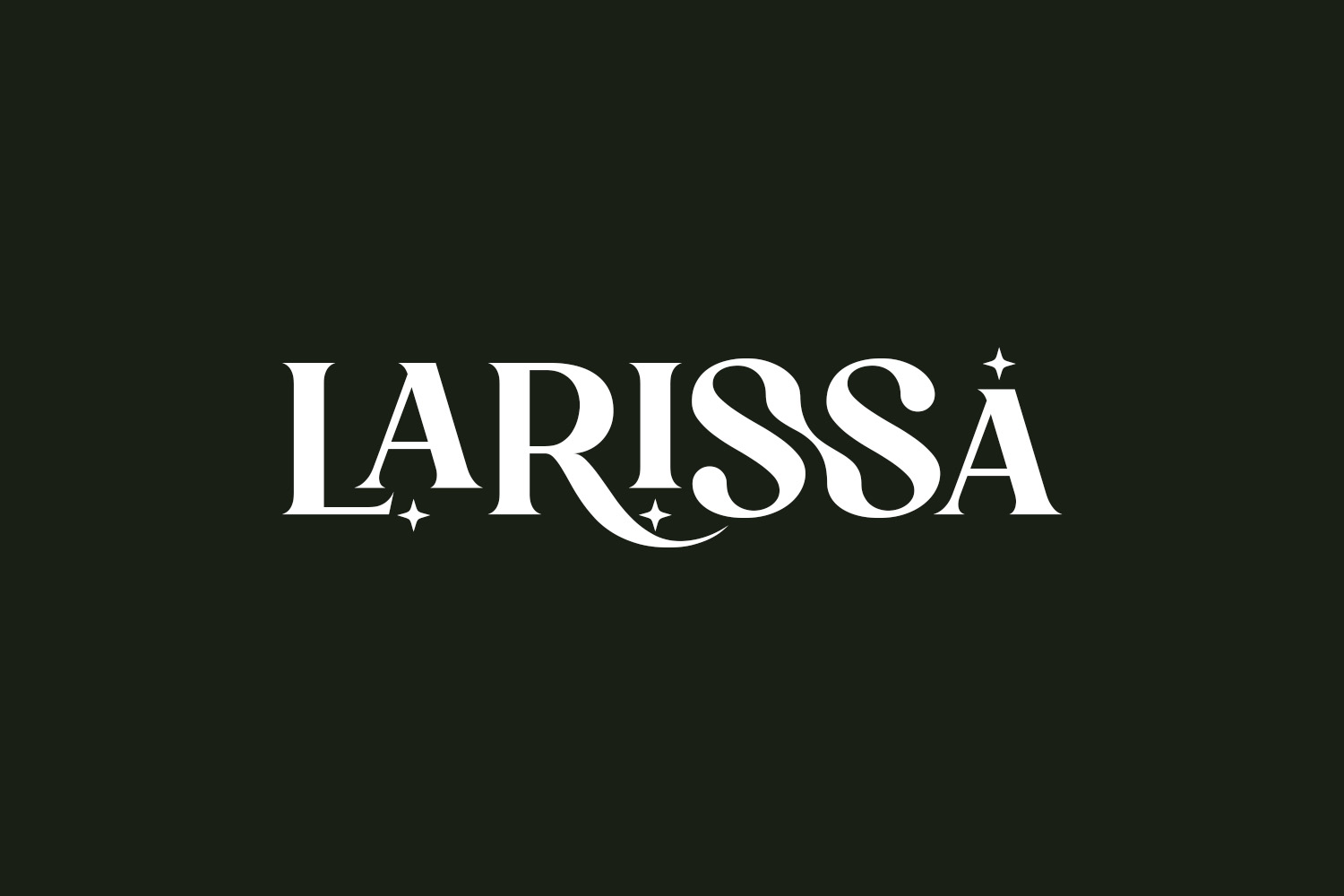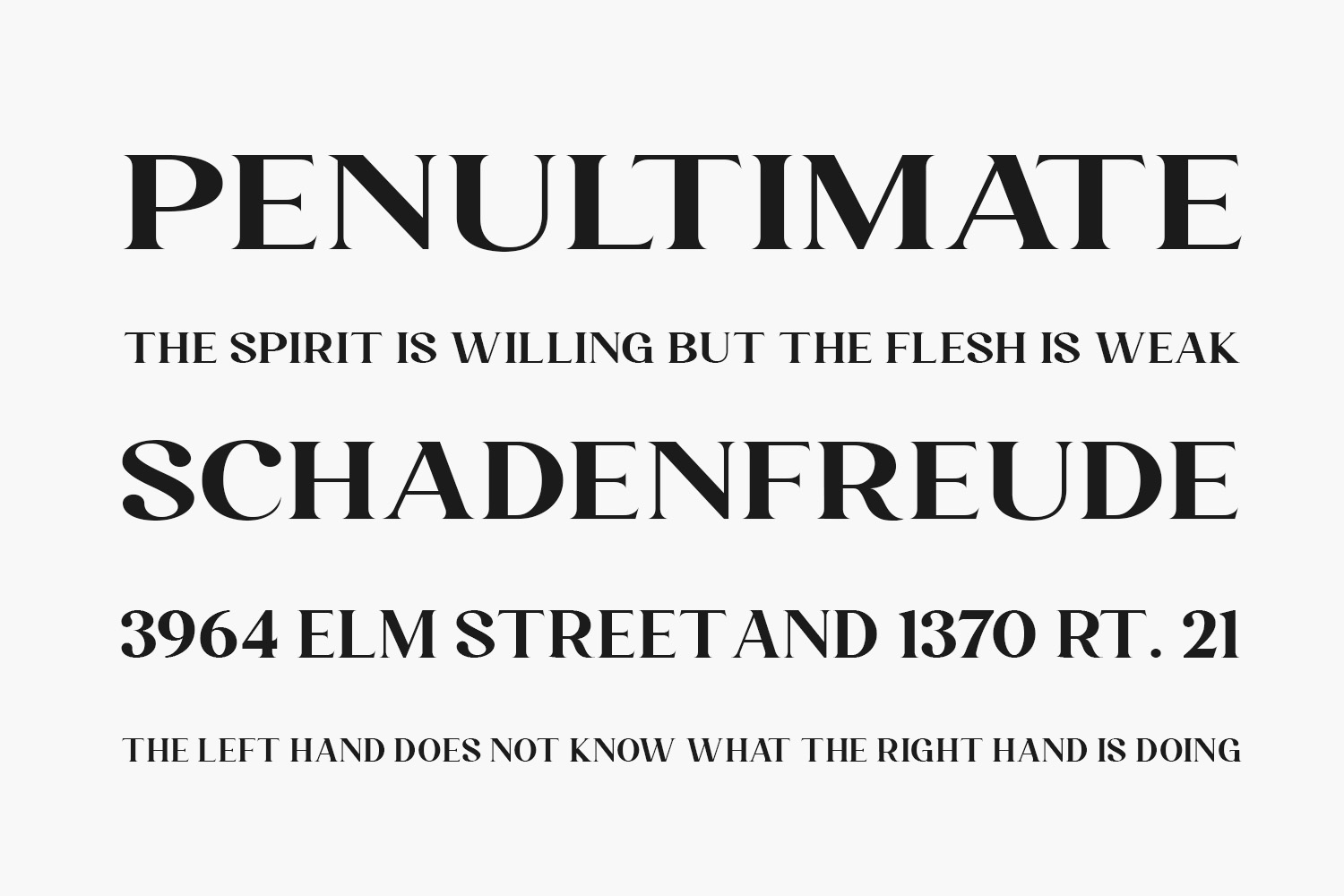
Larissa Free Font is a bold, luxurious serif font. It is perfect for fashion branding or editorial designs. Add it confidently to your projects, and you will love the results. Larissa Free Font was designed by Graphicxell and is free for personal use only. Please purchase the full version for commercial use.